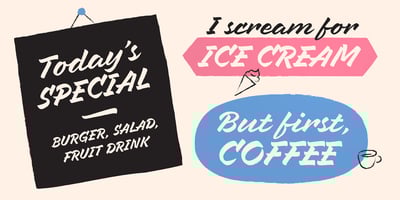
Mixed Tape Rough Font Family was designed by Ksenia Belobrova and published by Ksenia Belobrova. Mixed Tape Rough contains 2 styles and family package options. “Mixed Tape Rough” is a simplified version of the Mixed Tape font family. It’s a rough calligraphic font duo which includes 2 Styles: Regular and Capitals. It doesn’t have as many alternates as Mixed Tape and supports more languages. Mixed Tape Rough is a dynamic calligraphic font so it can be used for posters, t-shirts, menus, packaging, headlines, etc.